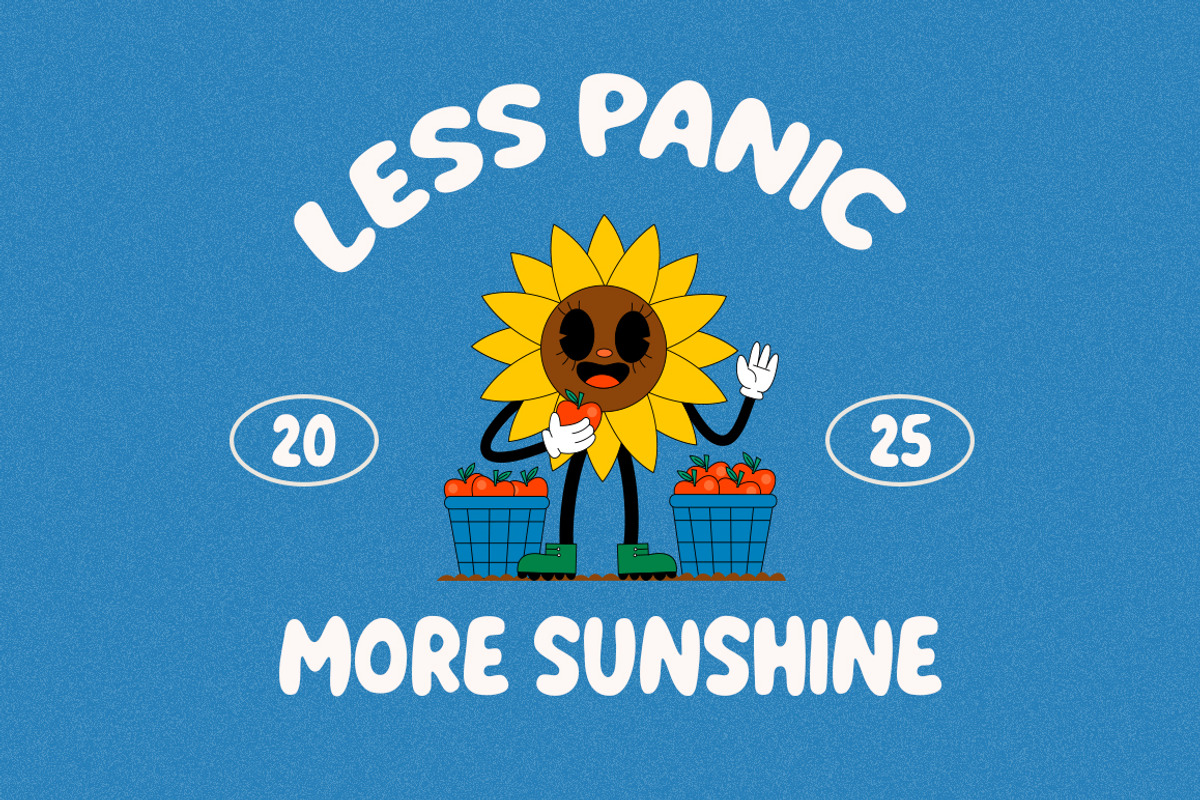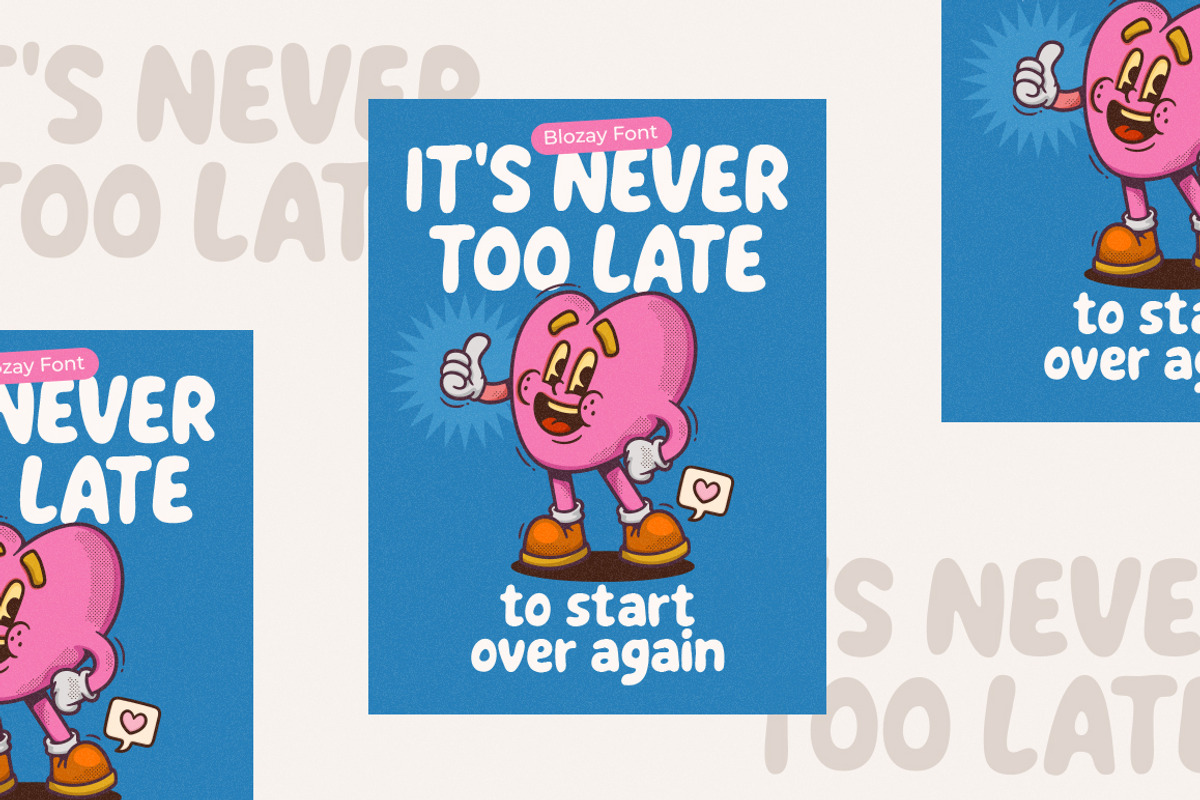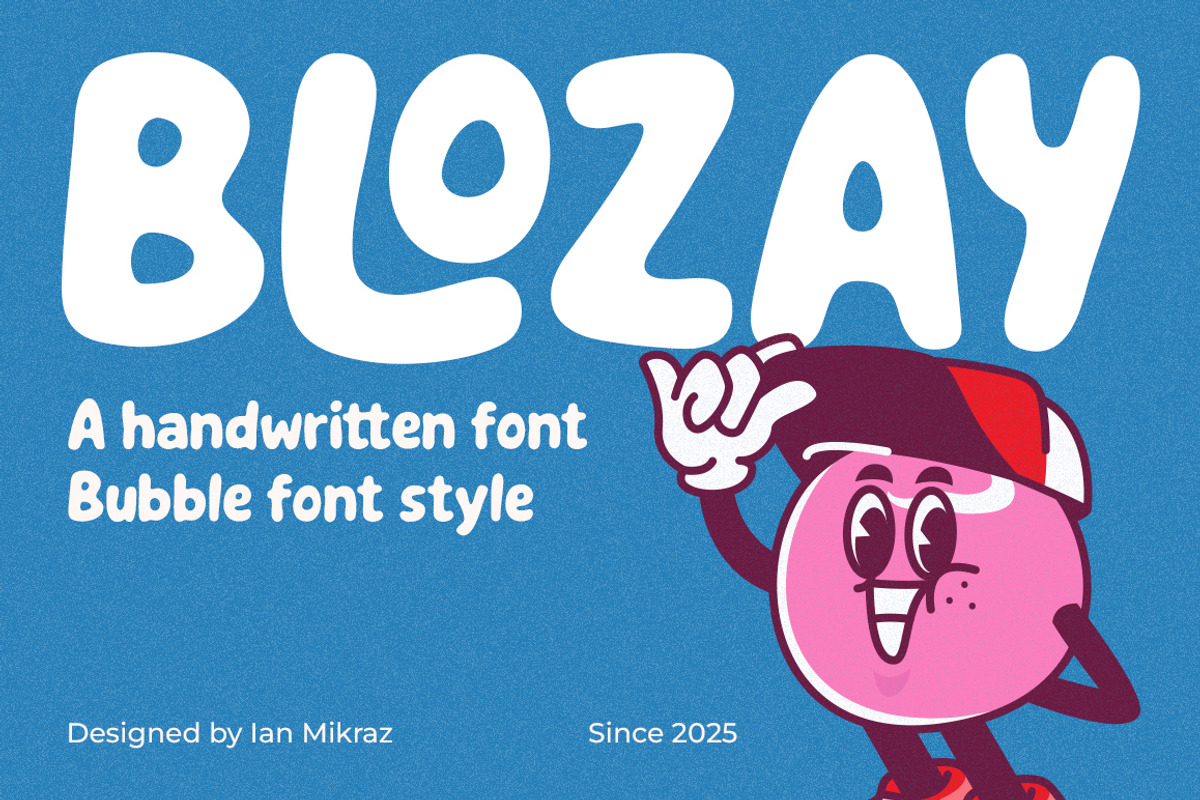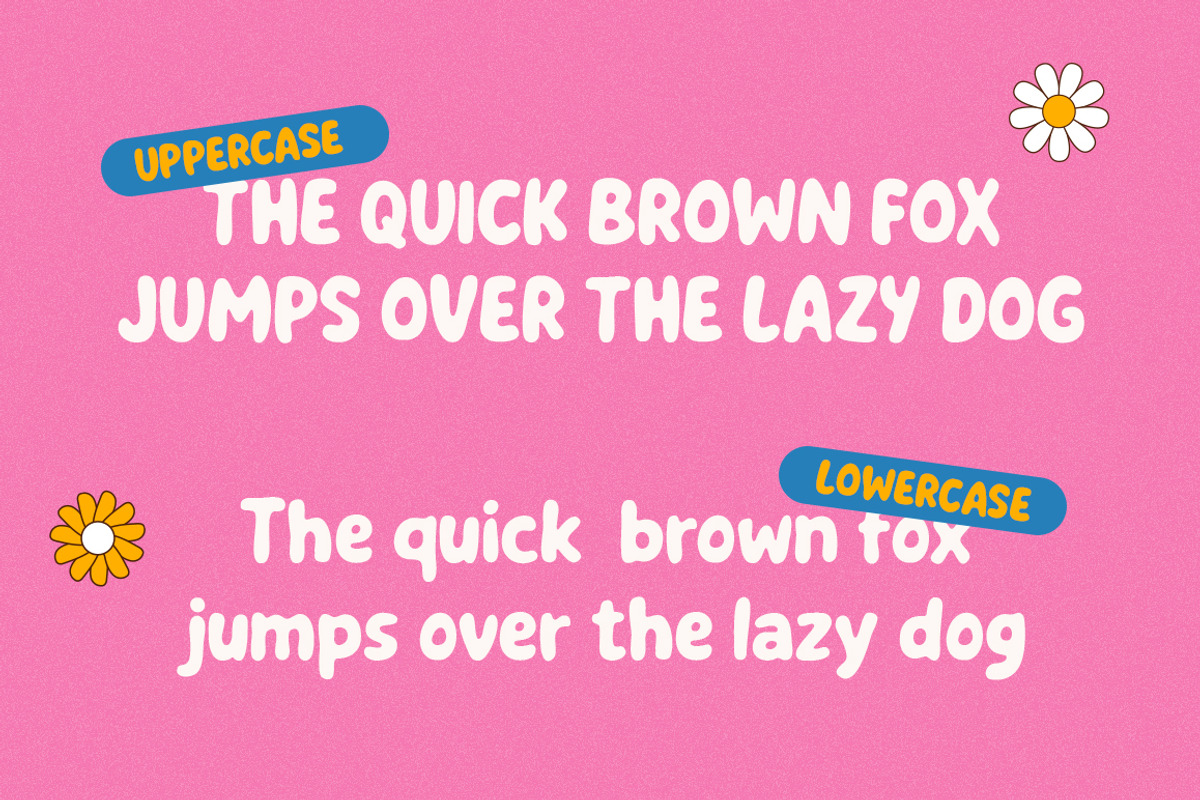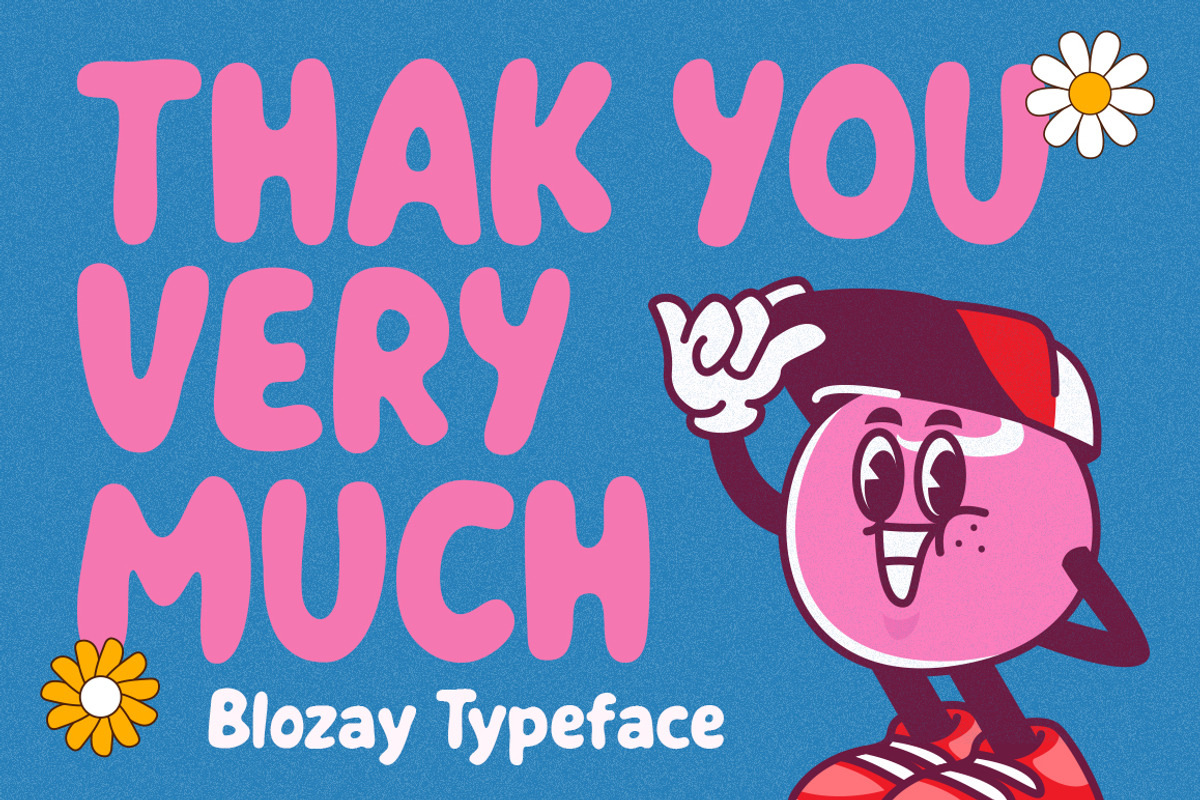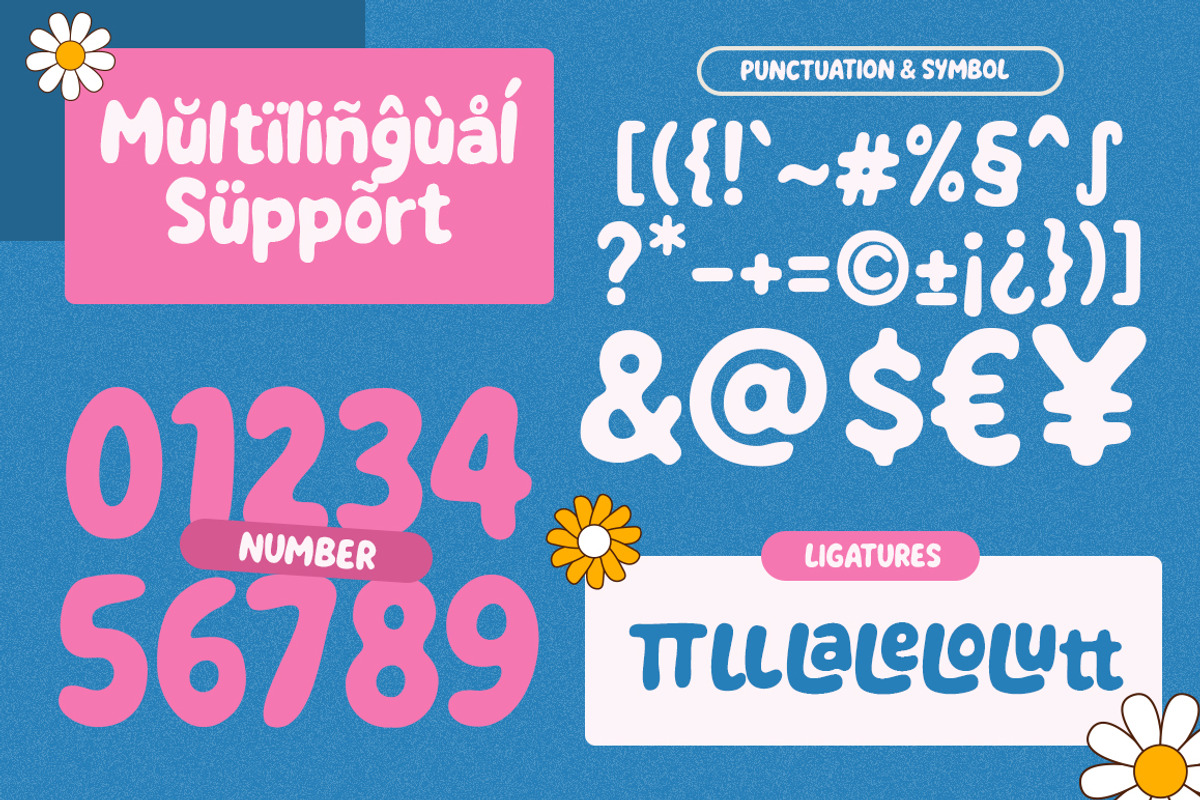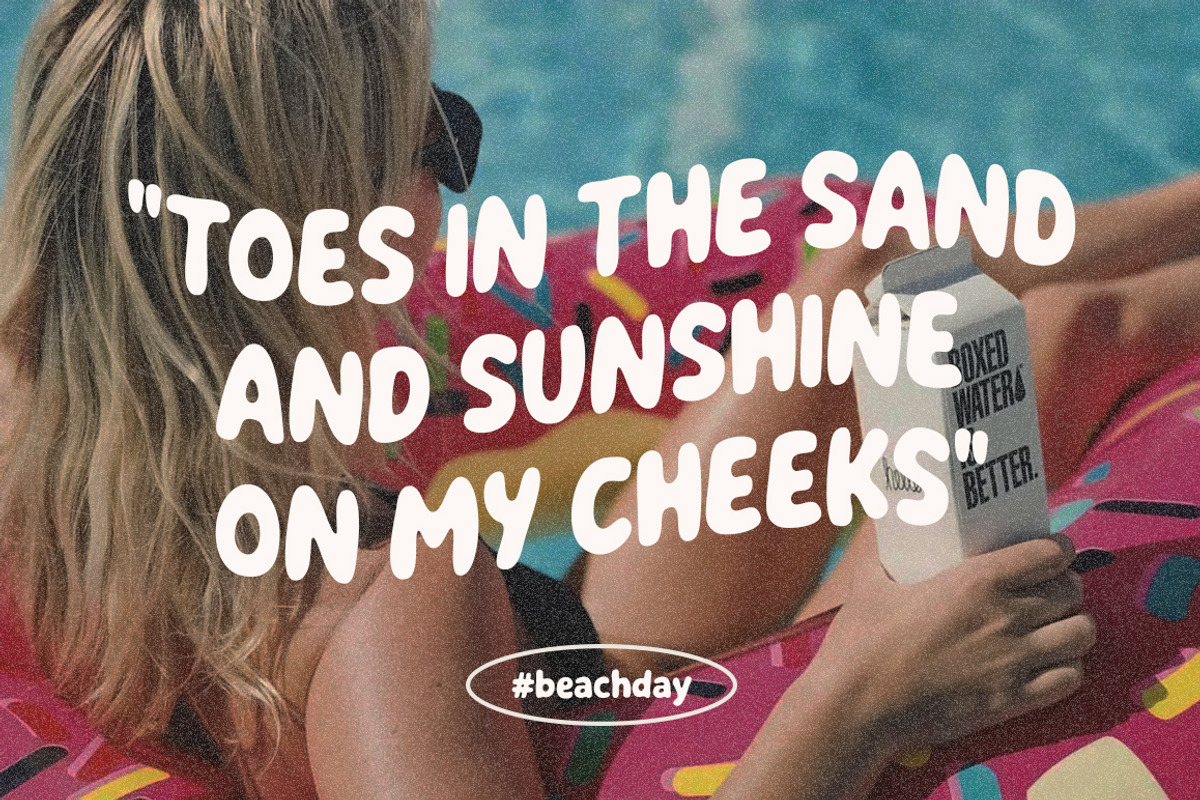
Blozay – Handwritten Bubble Font
Chunky, cheerful, and ready for fun headlines.
Blozay is a playful handwritten bubble font with soft, rounded shapes and a friendly personality. Its chubby letters bring instant joy and high impact to posters, social graphics, stickers, packaging, and kid-themed designs. Whether you’re crafting motivational quotes or summer merch, Blozay keeps your message bold, readable, and irresistibly cute.
Built for versatility, Blozay includes uppercase and lowercase characters, numbers, punctuation, ligatures, and multilingual support. The bouncy rhythm and balanced spacing make it easy to use on both light and dark backgrounds, while its bubbly forms pair perfectly with bright illustrations and cartoon mascots.
From T-shirt prints and YouTube thumbnails to party invites and classroom materials, Blozay delivers a sunny vibe that lifts any layout. Add a splash of fun to your brand identity or seasonal campaign and let this joyful bubble typeface do the smiling for you.